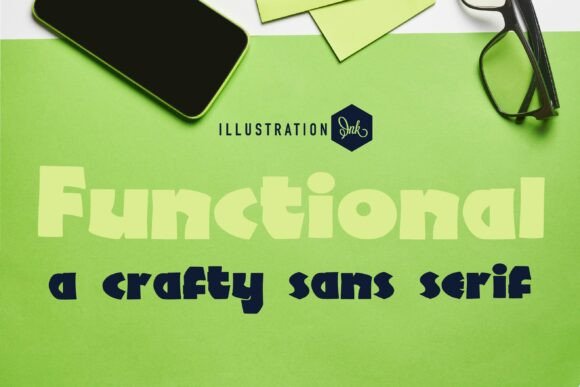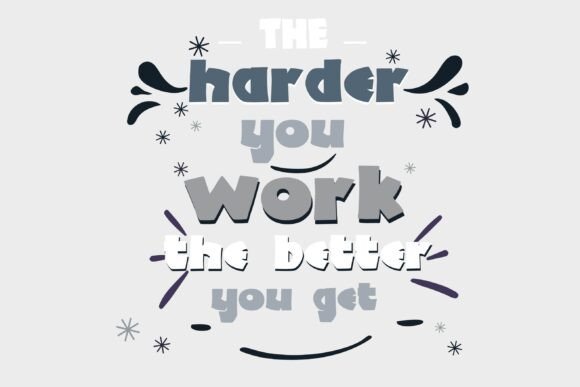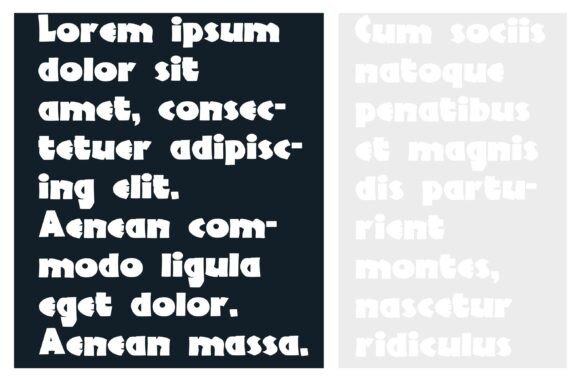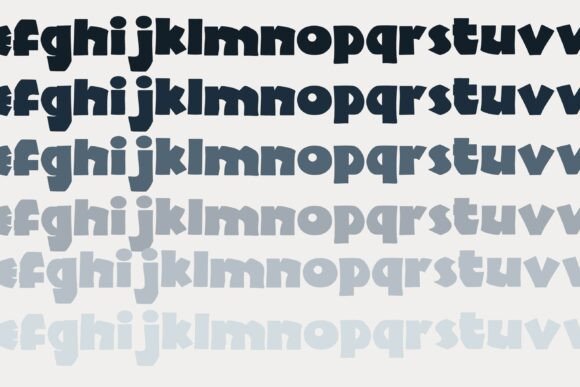
Functional Font
About the Functional Font
Step up your design game with Functional Font, a font that exudes confidence and style. This hand-crafted font is a whimsical sans serif with chunky, thick, whimsical lettering.
Functional Font’s playful, chunky style makes it ideal for headlines, short text blocks on posters, and branding elements where a friendly, approachable feel is desired. It works exceptionally well for packaging of children’s products or brands focused on craft and handmade goods. However, its whimsical nature and thick strokes make it unsuitable for body text or UI elements; readability suffers at smaller sizes and within longer passages.
Pairing Functional Font with a clean, geometric sans-serif like Futura or a more refined serif such as Garamond creates a balanced contrast. The geometric sans-serif provides a modern counterpoint to the hand-crafted feel, while the classic serif offers sophistication. For a more playful pairing, consider a script font with a similarly informal, hand-drawn quality.
The overall personality of Functional Font is undeniably bold and friendly, conveying a sense of handmade charm and approachability. It’s best suited for projects that require a touch of whimsical energy without sacrificing legibility in short bursts.